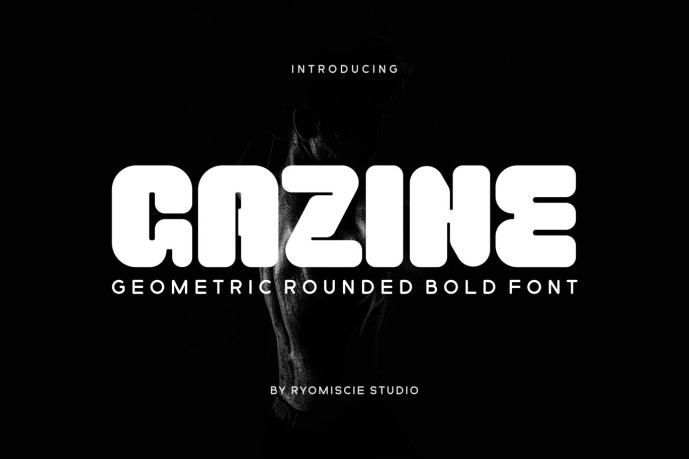
Gazine – Geometric Rounded Bold Font
Designer: ryomiscie
Introducing our new product Gazine – Geometric Rounded Bold Font
Gazine – Geometric Rounded Bold Font is a bold and authentic display font. The font is suitable for any branding project like logo, esport, and many more. outstanding in a wide range of contexts.